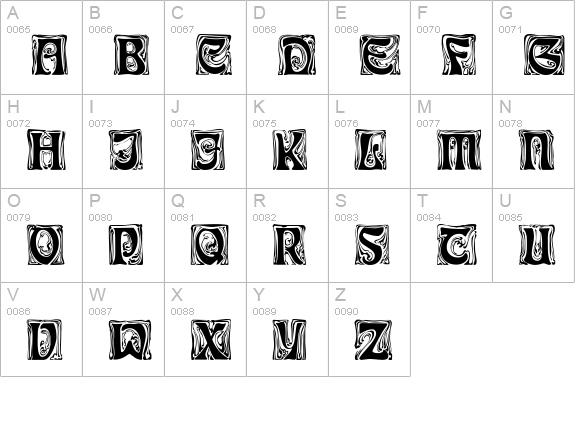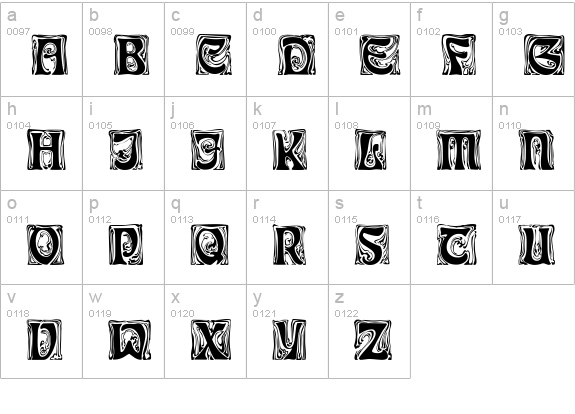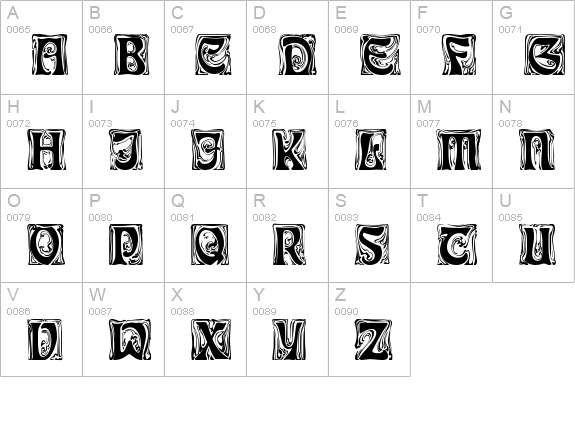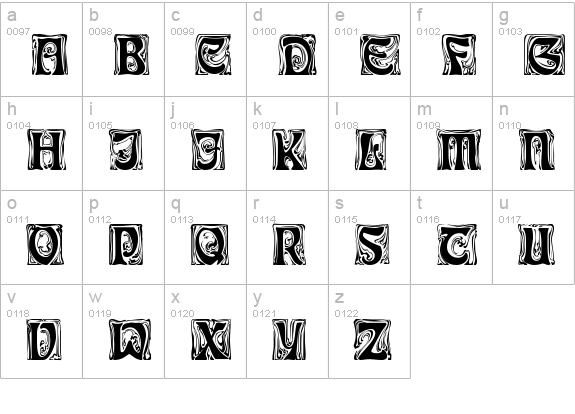
FestoonCapsSSK Font Details
FestoonCapsSSK font is a whimsical and decorative typeface that exudes elegance and charm. With its unique curves and ornate details, this font is perfect for adding a touch of sophistication to any design project. The intricate design of each character gives FestoonCapsSSK a playful yet refined look that is sure to make a statement. Not only is FestoonCapsSSK a visually stunning font, but it is also free to download at FontsMarket.com. This means that you can easily incorporate this beautiful typeface into your projects without any cost. Whether you are working on invitations, posters, or branding materials, FestoonCapsSSK is a versatile font that will elevate your designs and captivate your audience. Download FestoonCapsSSK today and unleash your creativity with this stunning and free font.